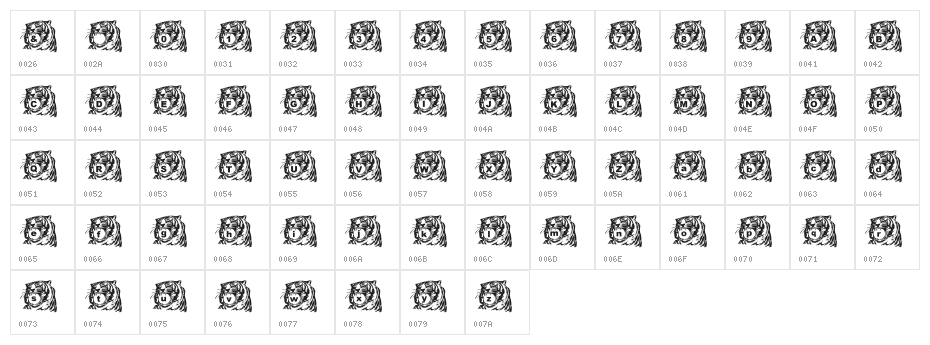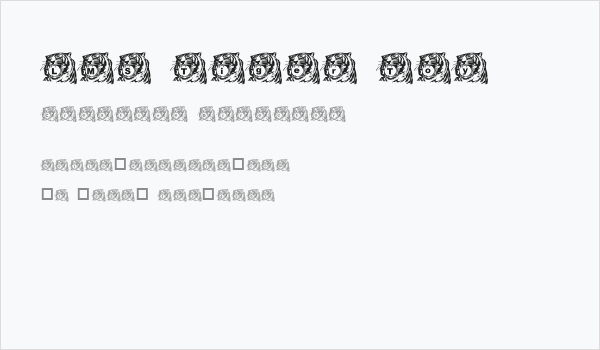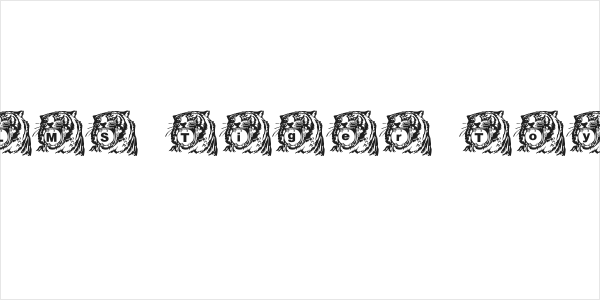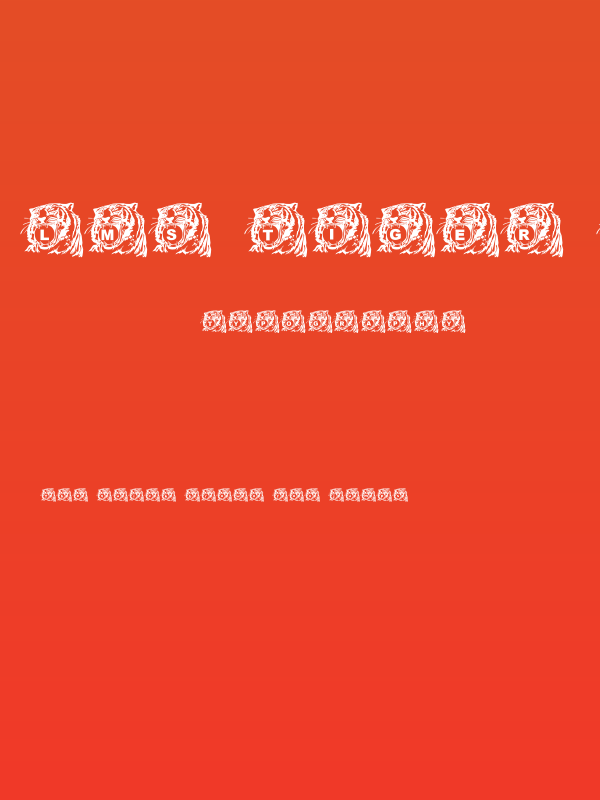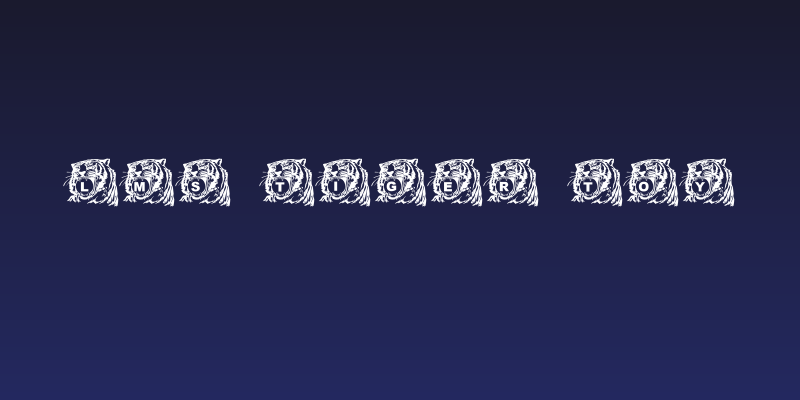
LMS Tiger Toy Font
LMS Tiger Toy Description
This decorative font features each character enclosed within a detailed tiger illustration, creating a unique and eye-catching design. The letters and numbers are bold and clear, ensuring readability despite the intricate background. The style is playful and artistic, making it suitable for creative projects. The tiger motif adds a wild and adventurous feel, perfect for themes related to wildlife, nature, or adventure. The font maintains consistent spacing and alignment, ensuring a cohesive look across all characters.
| Use Case | Logos, Posters, Creative Projects |
| Proposed Projects | Ideal for children's book covers, wildlife-themed posters, adventure branding, and creative event invitations. |